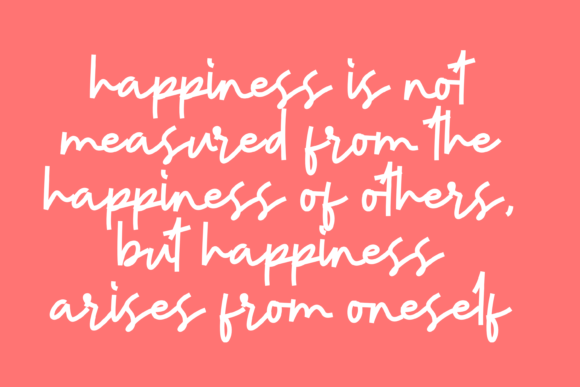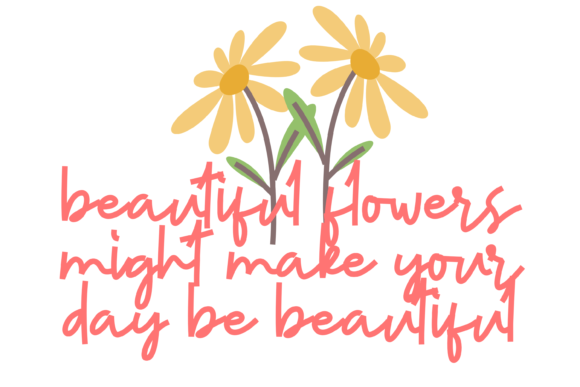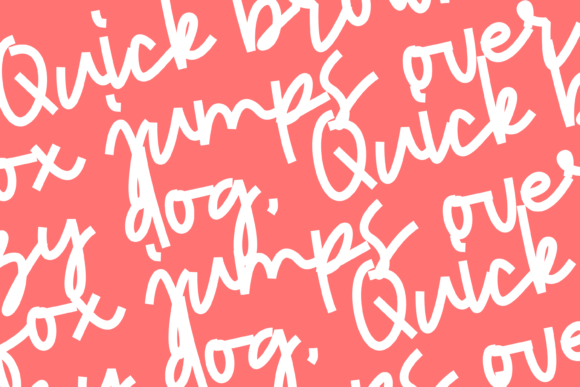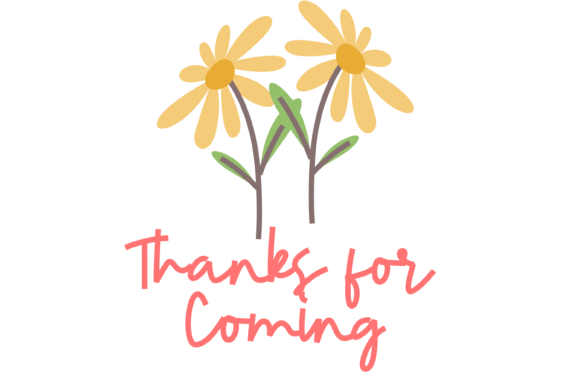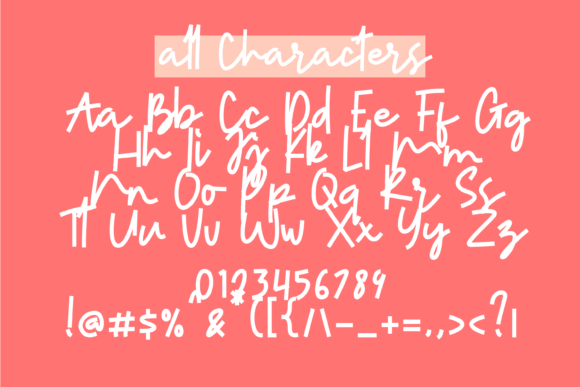
Introducing Another Brother Font: A Playful and Sweet Handwritten Delight
Are you on the hunt for a font that adds a touch of whimsy and sweetness to your designs? Look no further than Another Brother Font, a charming handwritten font that’s perfect for a variety of creative projects. In this article, we’ll dive into the world of Another Brother Font, exploring its features, uses, and benefits for designers and crafters.
A Versatile Font for Various Design Needs
Another Brother Font is a versatile typeface that can be used for a wide range of design applications. Its playful and sweet personality makes it an excellent choice for:
- Cartoon-related designs: Add a dash of fun and humor to your cartoon characters, logos, and branding materials.
- Children’s games: Create engaging and kid-friendly game titles, menus, and interfaces with this delightful font.
- Quotes and titles: Use Another Brother Font to add a touch of elegance and sophistication to your inspirational quotes, book titles, and headings.
- Brand names: Give your brand a unique and memorable identity with this charming font.
- Book covers: Create eye-catching book covers that stand out on bookshelves with Another Brother Font.
- Posters: Design stunning posters for events, promotions, or advertisements that showcase your creativity.
Key Features of Another Brother Font
So, what makes Another Brother Font so special? Here are some of its key features:
- Handwritten style: Another Brother Font boasts a beautiful, handwritten style that’s both playful and elegant.
- Unique character set: The font features a unique character set, including uppercase and lowercase letters, numbers, and punctuation marks.
- Easy to read: Despite its playful nature, Another Brother Font is easy to read, making it perfect for body text and headings.
- Scalable: This font is highly scalable, ensuring that it looks great in various sizes and resolutions.
Another Brother Font offers numerous benefits for designers and crafters, including:
- Time-saving: With Another Brother Font, you can quickly create stunning designs without spending hours on typography.
- Consistency: Use this font across multiple projects to maintain a consistent visual brand identity.
- Inspiration: Another Brother Font can spark creativity and inspire new design ideas.
- Easy to pair: This font pairs well with other typefaces, making it easy to create harmonious typography combinations.
Tips for Using Another Brother Font
To get the most out of Another Brother Font, follow these tips:
- Experiment with colors: Play around with different colors to find the perfect match for your design.
- Mix and match: Combine Another Brother Font with other fonts to create visually appealing typography combinations.
- Pay attention to spacing: Adjust the spacing between letters and words to ensure optimal readability.
- Have fun: Most importantly, enjoy using Another Brother Font and let your creativity shine!
In conclusion, Another Brother Font is a delightful handwritten font that’s perfect for designers and crafters looking to add a touch of whimsy and sweetness to their creations. With its versatility, unique features, and benefits, this font is sure to become a staple in your design toolkit. So, go ahead and give Another Brother Font a try – we promise you won’t be disappointed!